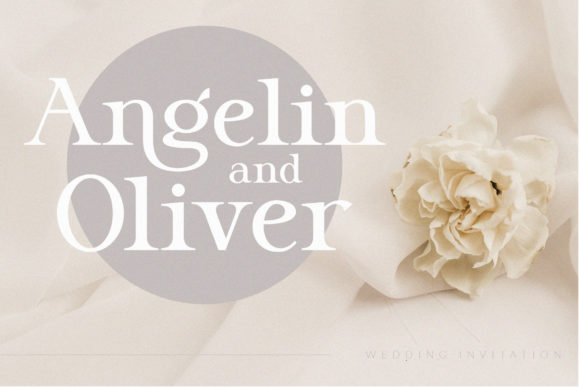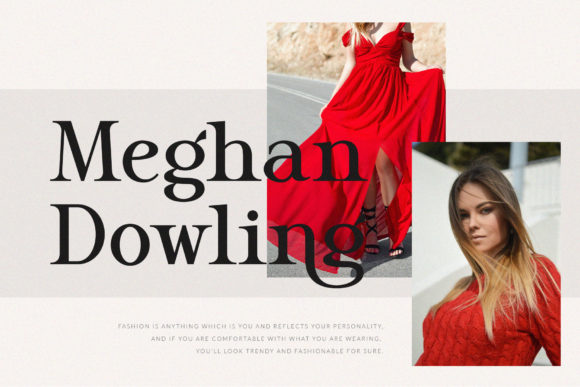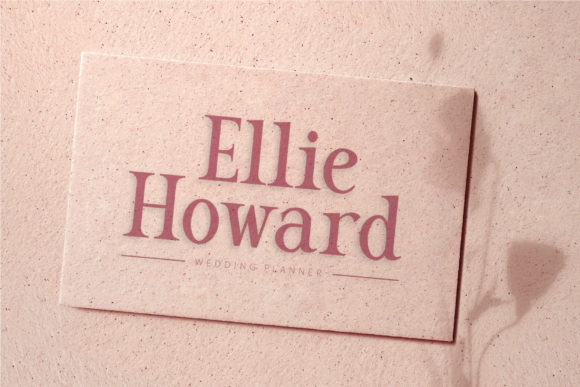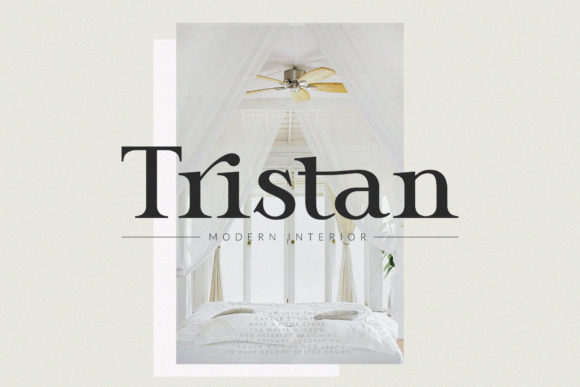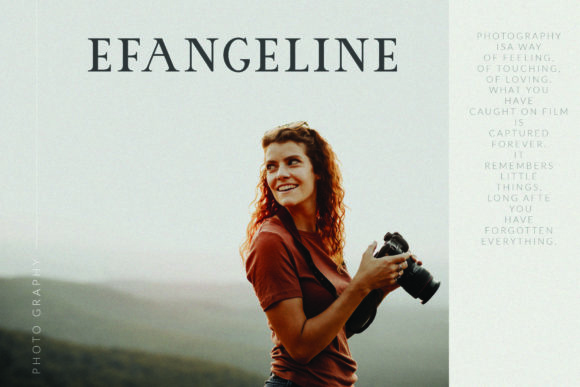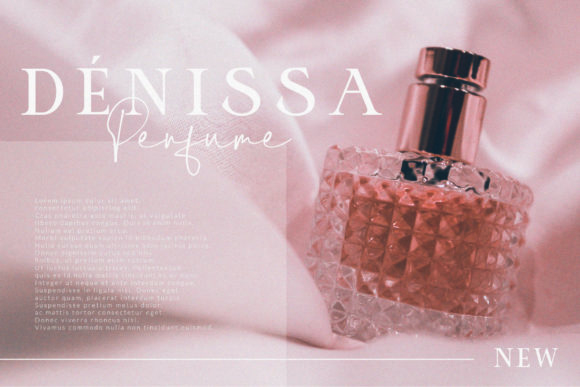
Introduction to Sangrita Font
As designers, we’ve all been there – staring at a blank canvas, eager to bring a creative project to life. The right font can be the spark that ignites the entire design process, and that’s exactly what we’re excited to share with you today: the stunning Sangrita Font. This high-quality serif font is sure to captivate your audience and elevate your designs to new heights.
With its ravishing style and playful charm, Sangrita Font is the perfect addition to any design project. Whether you’re creating beautiful wedding invitations, stunning social media posts, or gorgeous stationary art, this versatile font is sure to shine. Plus, it’s available for free download, making it an invaluable resource for designers of all levels.
Key Features of Sangrita Font
- High-quality, free download font ideal for creative projects
- Unique, hand-drawn design with a transparent background for versatility
- Includes a wide range of characters, including uppercase and lowercase letters, numbers, and punctuation
- Perfect for designers, artists, and writers looking for a distinctive and creative design resource
Honest Review: Sangrita Font
I recently stumbled upon the Sangrita Font and I must say it’s a great addition to any design resource library. The font is available for a free download, making it an excellent choice for creative projects on a budget.
What works well about the Sangrita Font is its modern and sleek design. It’s perfect for titles, headings, and any other text elements that require a touch of sophistication. The transparent background option also makes it easy to use in a variety of design scenarios.
Here are some of the key features that caught my attention:
- High quality design that’s perfect for creative projects
- Modern and sleek design that’s perfect for titles and headings
While the Sangrita Font is a great resource, there are a few limitations to consider: ⚠️ It’s not suitable for body text, as it can be a bit too bold and overwhelming. Additionally, it may not be compatible with all operating systems.
Overall, I’m impressed with the Sangrita Font and would definitely recommend it to designers looking for a high-quality, free design resource. With its modern design and transparent background, it’s a great addition to any design library. ✨
Sangrita Font
The Sangrita Font is a high-quality, free download font perfect for any creative project. It’s a versatile design resource that can be used in a variety of settings, from branding and marketing materials to digital designs and print media.
Tips for Getting the Most Out of Sangrita Font
To get the most out of the Sangrita Font, experiment with different font sizes, colors, and styles to create a unique and eye-catching design. You can also combine it with other design elements, such as graphics and images, to add depth and interest to your project.
The Sangrita Font is perfect for a variety of use cases, including branding and marketing materials, digital designs, and print media. It’s also great for creating custom graphics, logos, and typography for any creative project.